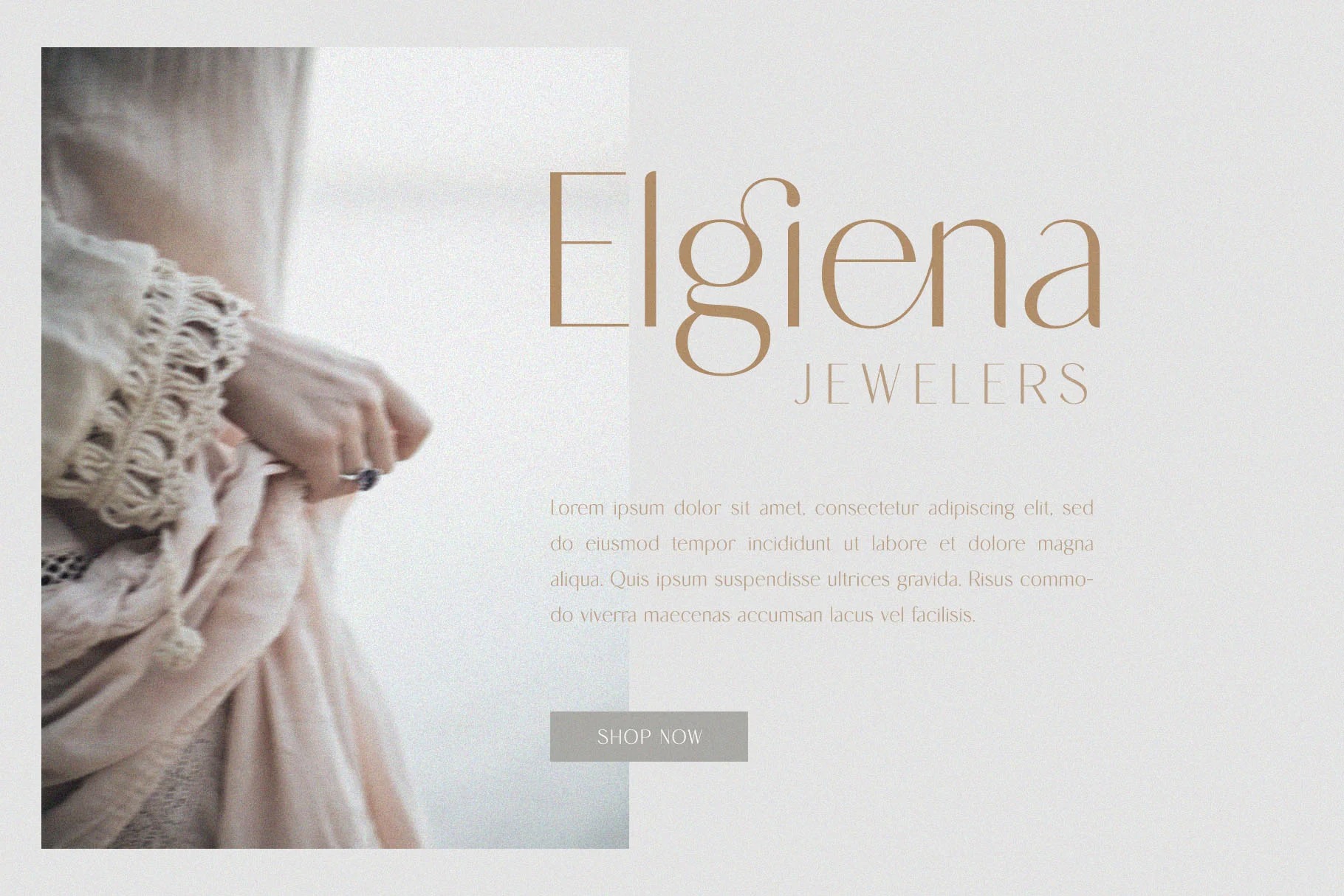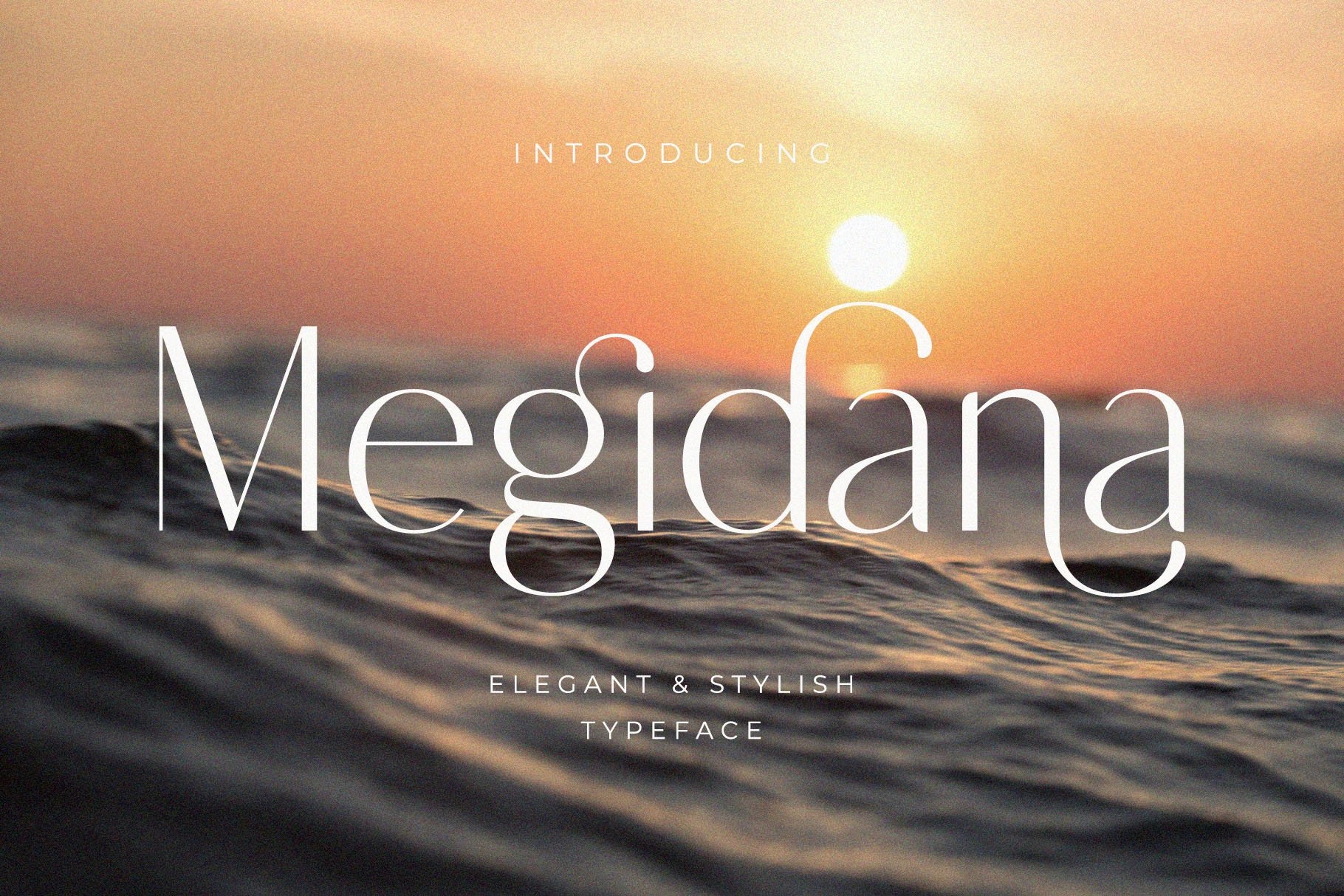
Megidana Sans Serif Font
This is a modern stylish font that has the characteristic of the classic familiar sans serif. Best used as a display for headings, logos, branding, magazines, product packaging and invitations. Megidana come with clean lines and smooth curves give any project an extra touch of class.